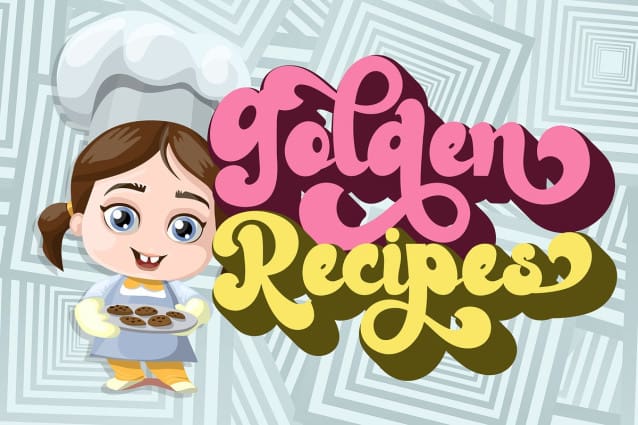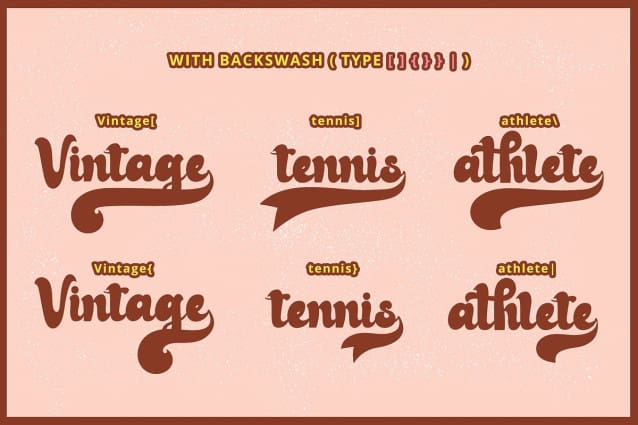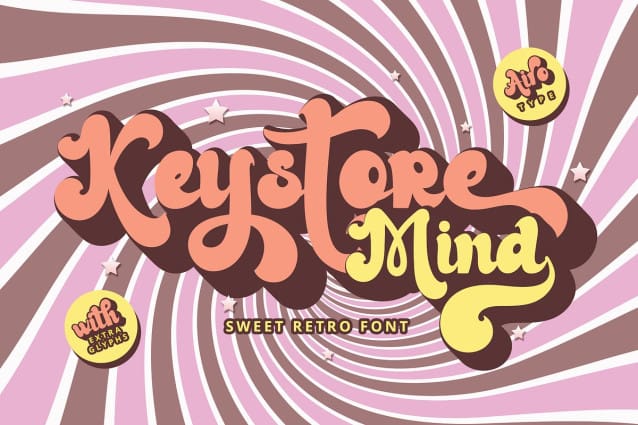
Keystore Mind Font
Keystore Mind Font is bold script font with retro style. It has vintage vibes, but still gorgeous and fabulous. KeystoreMind is perfect font for any project, for vintage retro design, baseball, branding, logo, lettering, crafting, sticker, sublimation, and many more.